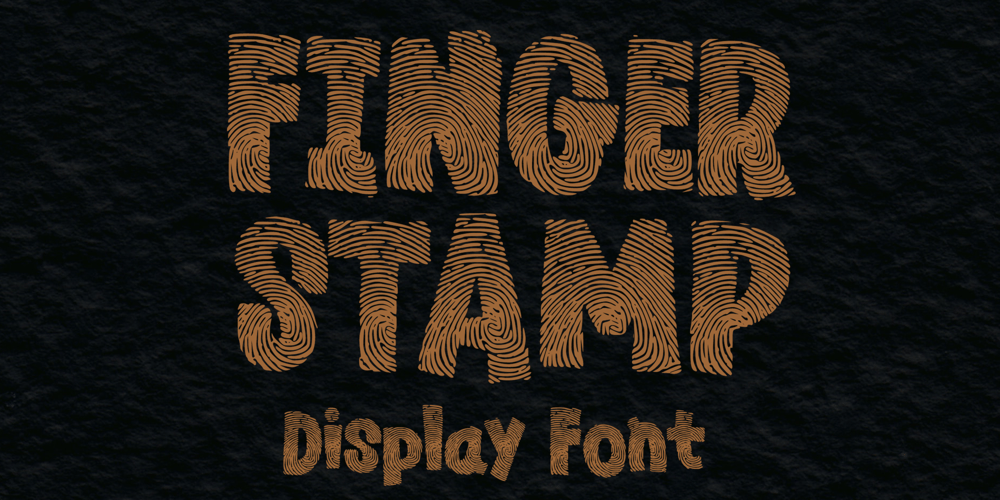
Finger Stamp Font Family was designed by Gabriel Valentinus and published by Mvmet. Finger Stamp contains 1 styles and family package options. Finger Stamp is an unique display font with fingerprint texture on it. You can use it for anything ranging from t-shirts and clothing, for your kids book designs, kids party needs, greeting cards, stickers, posters, banners, or anything that needs a bold and fun touch. Try it to create fabulous designs and feel the fun and cheering vibes with it!